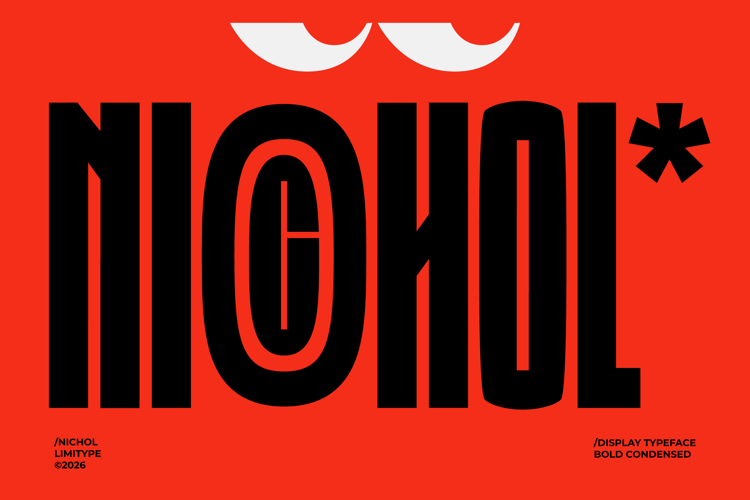
Nichol - Condensed Font
Nichol is a modern condensed font with sharp corners and distinctive curves in each letterform, creating a bold yet stylish visual character. Its sleek structure and unique shapes make this font highly suitable for branding, logos, posters, headlines, editorial layouts, visual identities, and modern display designs that require a strong and memorable appearance.